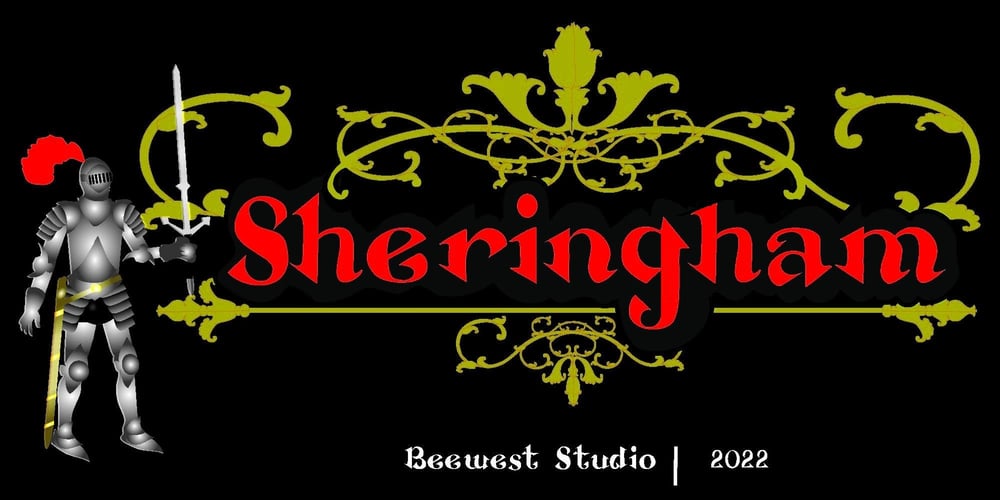
Sheringham
Sheringham font
Sheringham Font Family was designed by bsmbang wisudyantoro and published by Beewest Studio. Sheringham contains 1 styles and family package options. Sheringham is a bold, classic and modern display of the font. It will increase a variety of craft ideas, from cards, to branding, labels, book cover titles and more.Feel free to add this font to your favorite creations and you will be amazed at the results it produces. Thank you !